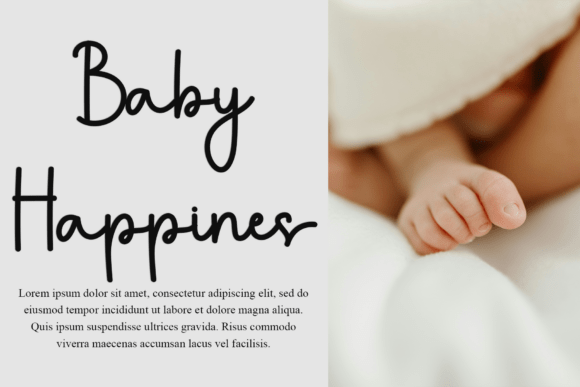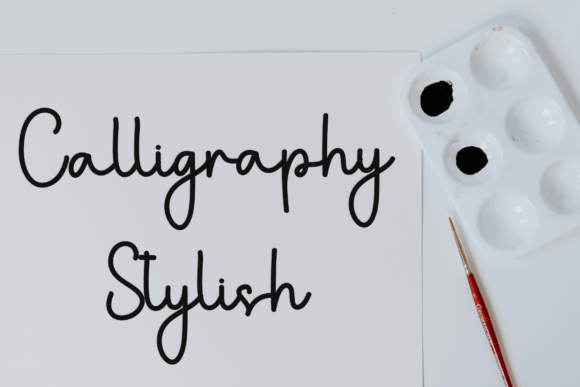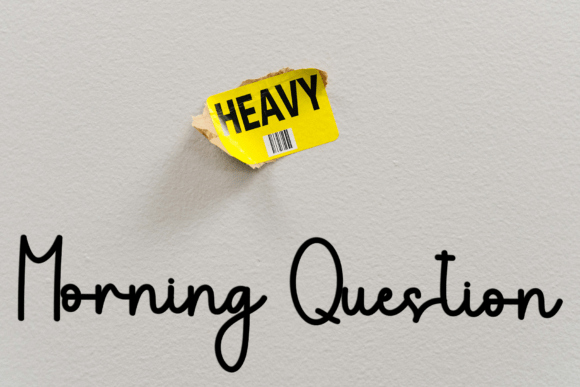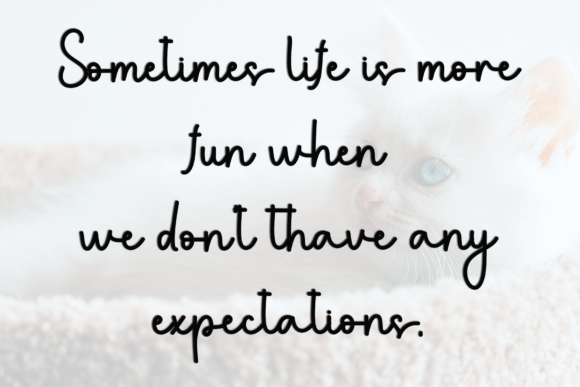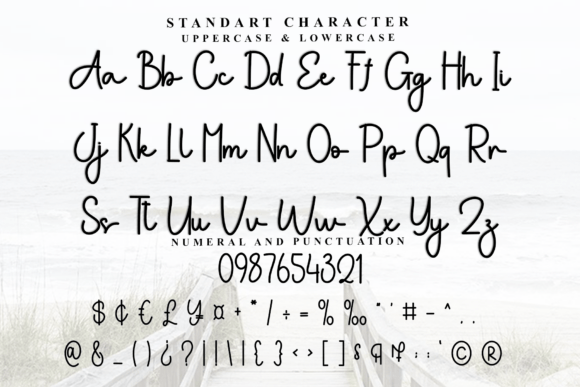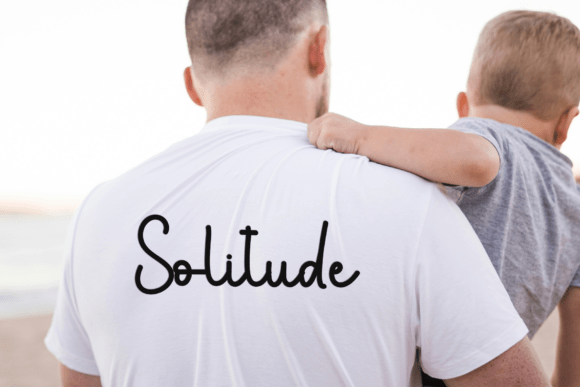
The Americano Font: A Designer’s New Best Friend
I still remember the frustration of working on a design project, hours spent searching for the perfect font, only to end up with something that just didn’t feel right. My client wanted a unique, eye-catching font that would make their brand stand out, but I was struggling to find something that fit the bill. That’s when I stumbled upon the Americano font, and let me tell you, it was love at first sight! ✨
So, what makes the Americano font so special? Here are a few things I love:
• 💫 Its soft, unique touch sets it apart from other fonts on the market.
• ✅ The distinctive strokes give it a special character that’s both meaningful and versatile.
• 🎨 The font comes with a wide range of characters, making it perfect for design projects, crafts, and other creative works.
• 🤔 Some users may find that the font can be a bit finicky when it comes to kerning and spacing.
• ⚠️ The font may not be suitable for very small or very large font sizes, as some details may get lost.
The Backstory Behind Americano Font
The Americano font was designed by a team of typographers who wanted to create a unique, eye-catching font that would stand out in a crowded design landscape. Inspired by the classic fonts of the past, they added a modern twist to create a font that’s both timeless and trendy. The result is a font that’s perfect for designers, crafters, and creative hobbyists who want to add a touch of personality to their work.
What is the Americano font? The Americano font is a beautiful, eye-catching font designed with a soft, unique touch.